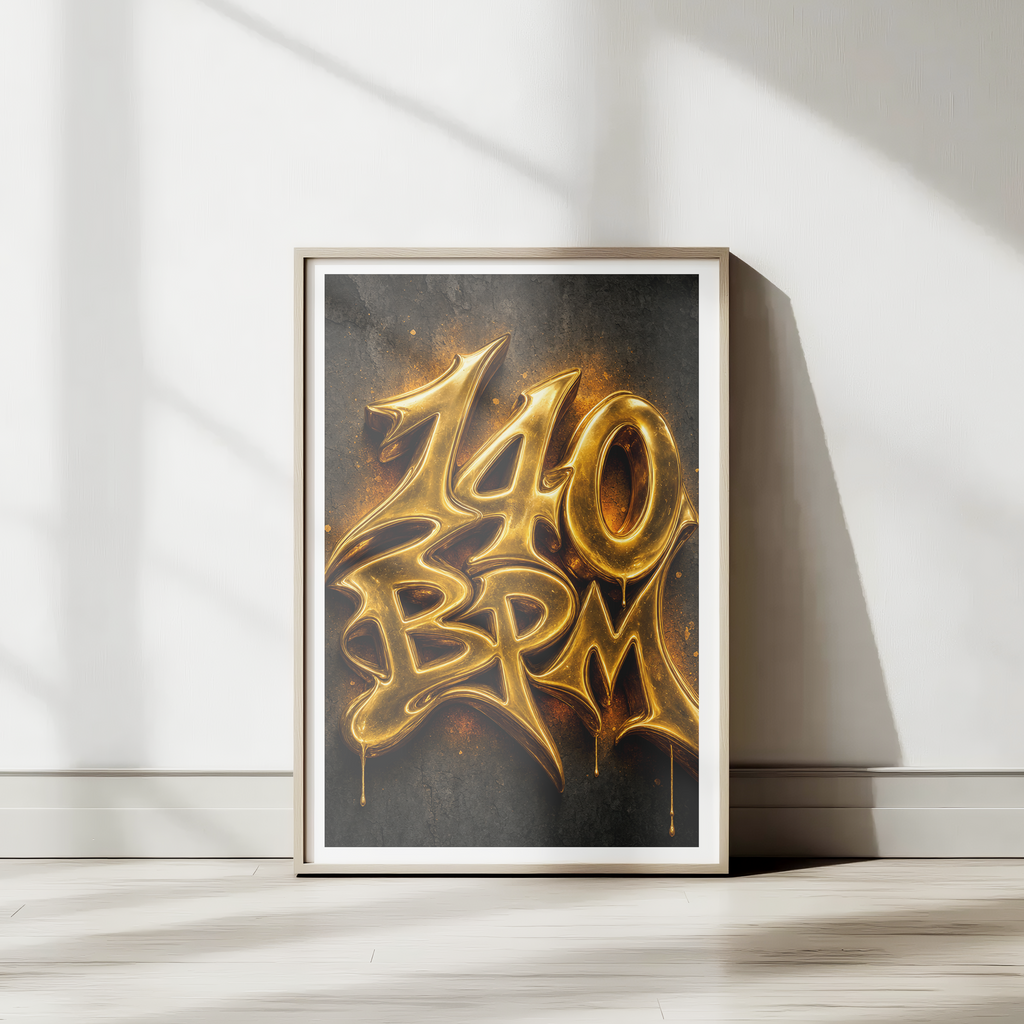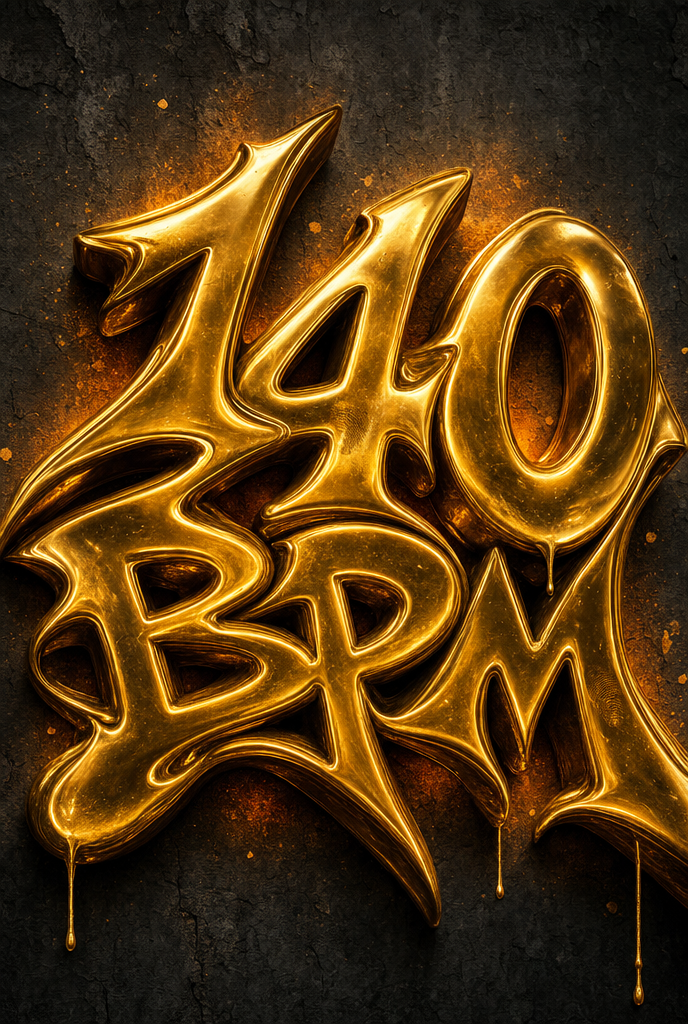
140BPM
Premium 61 x 91 cm poster featuring striking gold "140 BPM" graffiti-style lettering on a dark textured background. High-contrast metallic finish and rich detail make it a bold statement piece for music studios, DJ booths, or modern interiors.